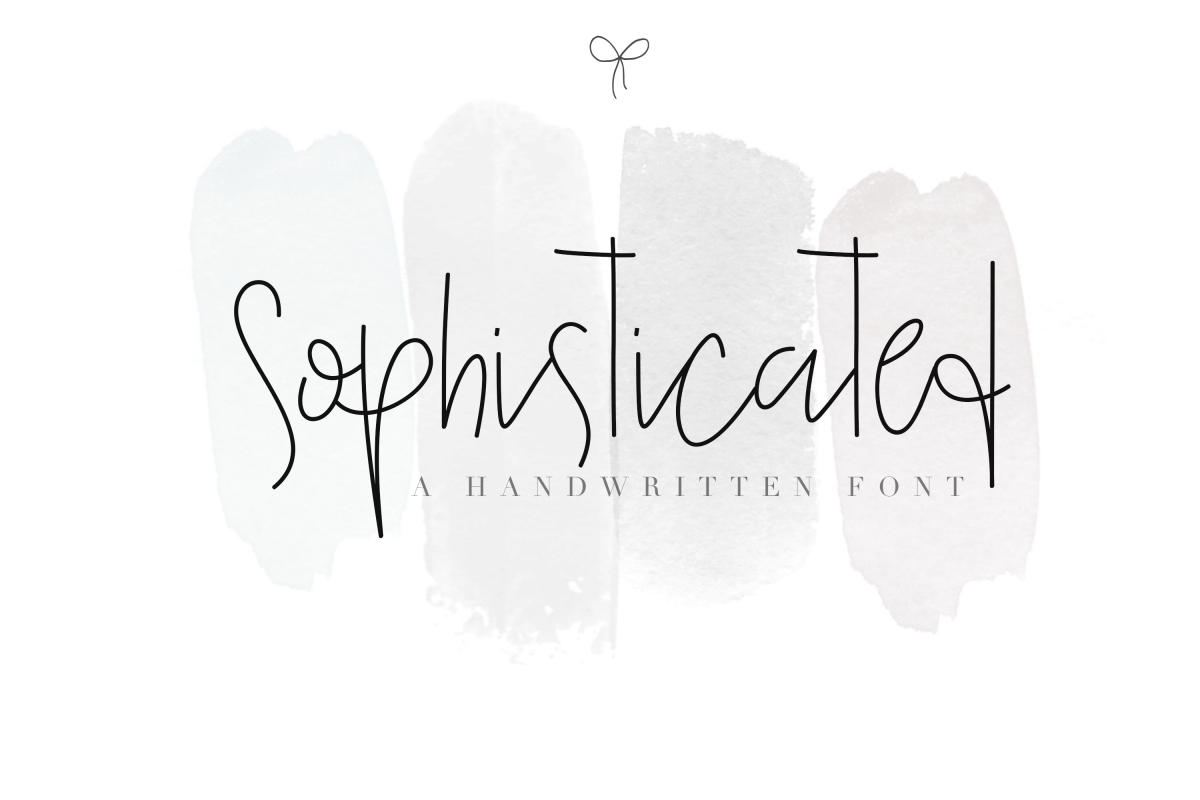
Sophisticated Outfit - A Chic Handwritten Font
Sophisticated Outfit is a unique handwritten font.
This font is perfect for quotes, headings, blogs, logos, invitations and more!
This font does include accent characters